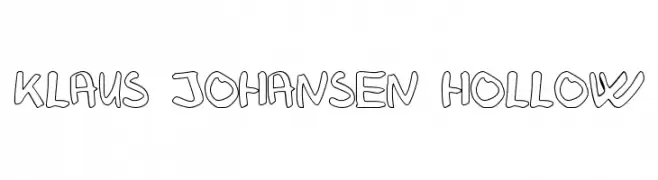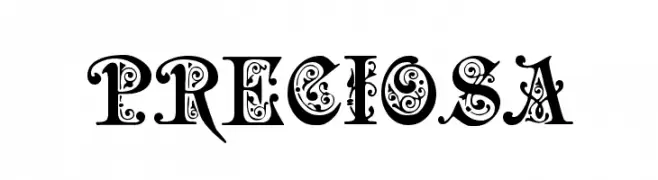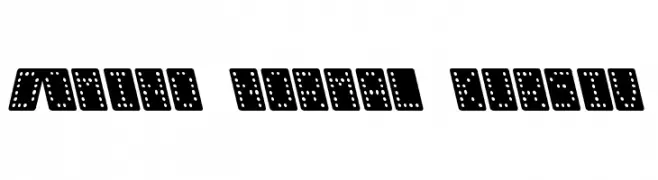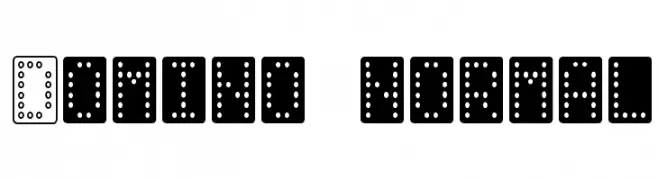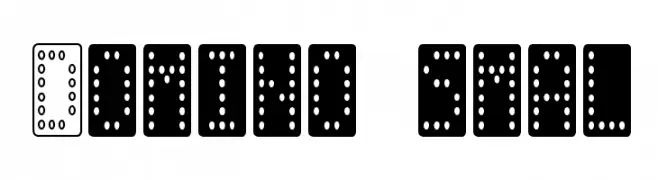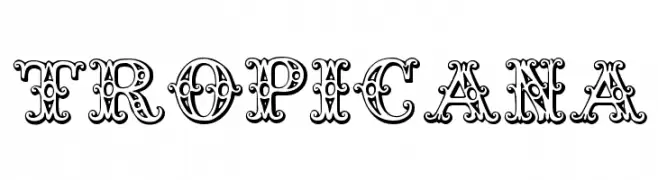
( Fonts by Klaus Johansen - www.listemageren.dK )
A playful, hollow, and outlined font with bold, rounded characters.
( Fonts by Klaus Johansen - www.listemageren.dK )
An ornate, decorative font with intricate detailing and a vintage flair.
( Fonts by Klaus Johansen - www.listemageren.dK )
A decorative font styled like domino tiles, featuring bold characters with uniform width.
( Fonts by Klaus Johansen - www.listemageren.dK )
A playful, domino-themed font with bold, italicized letters.
( Fonts by Klaus Johansen - www.listemageren.dK )
A playful font styled like domino tiles with dots forming characters.
( Fonts by Klaus Johansen - www.listemageren.dK )
A playful font inspired by domino tiles, featuring letters formed by dot patterns.
( Fonts by Klaus Johansen - www.listemageren.dK )
An ornate and decorative font with intricate detailing and bold outlines.
( Fonts by Klaus Johansen - www.listemageren.dK )
The image contains zodiac symbols, not a valid font.
( Fonts by Klaus Johansen - www.listemageren.dK )
Ornate dingbat font with mythical and fantasy illustrations.
( Fonts by Klaus Johansen - www.listemageren.dK )
Illustrations of various aeroplanes in a structured grid format.
( Fonts by Klaus Johansen - www.listemageren.dK )
An ornate, Art Nouveau-inspired decorative font featuring intricate illustrations of women.
( Fonts by Klaus Johansen - www.listemageren.dK )
Decorative font with ancient classical head illustrations.
( Fonts by Klaus Johansen - www.listemageren.dK )
An intricate, decorative font with woodcut-style floral motifs.
( Fonts by Klaus Johansen - www.listemageren.dK )
Font made from intricate classical statue illustrations.
( Fonts by Klaus Johansen - www.listemageren.dK )
The image features decorative woodcut illustrations, not a functional font.
( Fonts by Klaus Johansen - www.listemageren.dK )
A collection of zodiac-themed icons with detailed illustrations.
( Fonts by Klaus Johansen - www.listemageren.dK )
An Art Nouveau-inspired decorative font with intricate, ornamental designs.
( Fonts by Klaus Johansen - www.listemageren.dK )